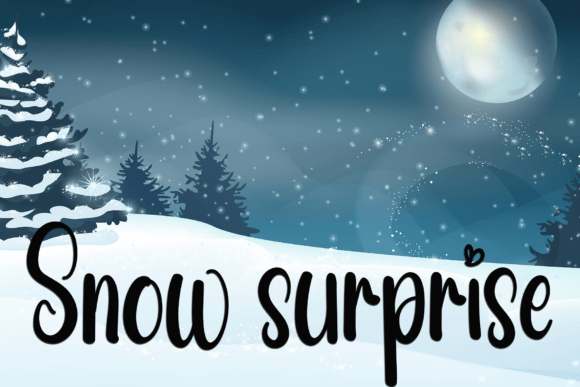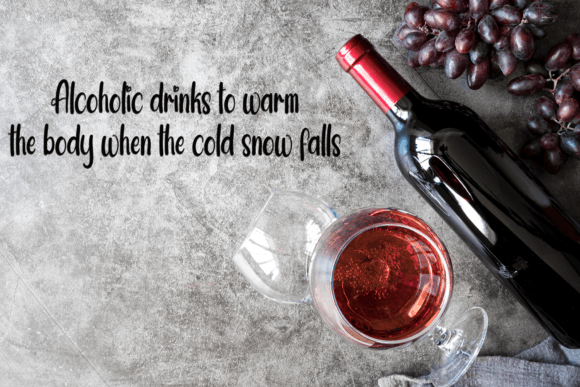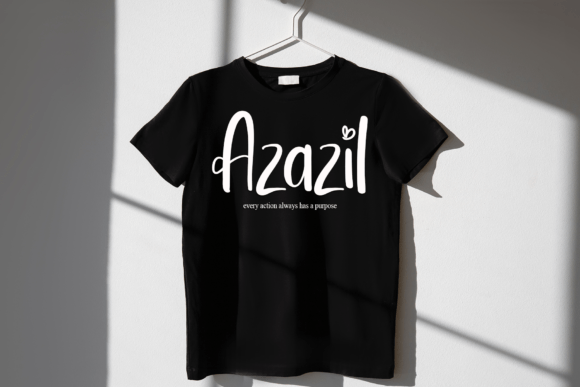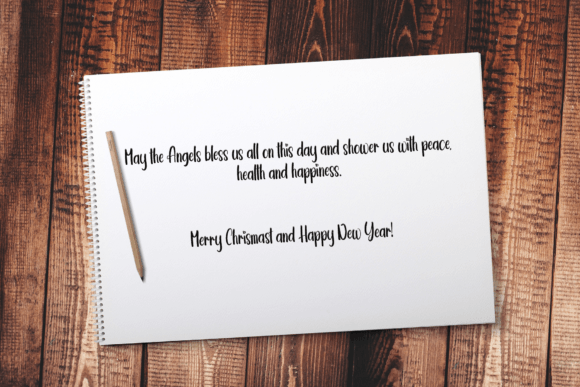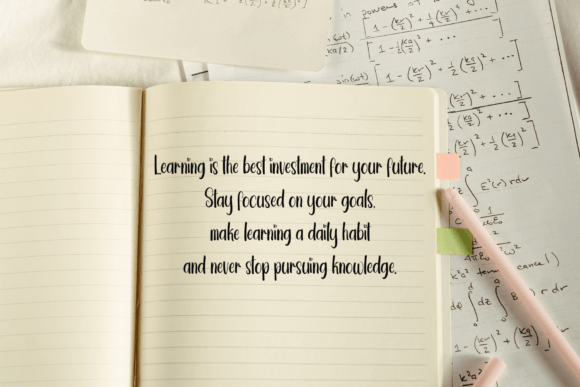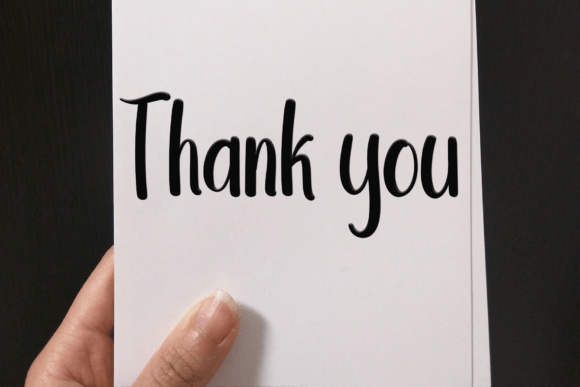
Introduction to Snow Angel Font
Do you remember that moment when you finally nailed your design project? The one that made you jump for joy and shout, “Yes, this is it!”? For designers, those moments are what make all the hard work worth it. And what’s even better is when you have the perfect tool to make your design come alive – enter the Snow Angel Font.
This stunning, free download font has been a game-changer for many designers, and for good reason. Its simple yet playful nature makes it incredibly versatile, allowing you to elevate your designs to new heights. Whether you’re working on a project with a transparent background or a high-quality graphic, the Snow Angel Font is the perfect design resource to add that extra touch.
As a valuable addition to any creative project, the Snow Angel Font is a must-have for designers looking to take their work to the next level. So why settle for ordinary when you can have extraordinary with this beautiful, free font?
Key Features of Snow Angel Font
- High-quality design: The Snow Angel Font is a premium design resource featuring intricate and delicate details that are perfect for creative projects.
- Unique characteristics: The Snow Angel Font features a unique and whimsical design that is sure to add a touch of magic to any creative project.
Honest Review: Snow Angel Font
As a designer, I’m always on the lookout for unique and high-quality design resources to elevate my creative projects. The Snow Angel Font is a free download that caught my attention with its elegant and whimsical design. ✨
One of the standout features of this font is its transparent background, which makes it easy to overlay on any design element. It’s also incredibly versatile, with a wide range of applications from wedding invitations to children’s book illustrations.
⚠️ The font is a bit more difficult to read in smaller sizes, and may require some adjustments to ensure legibility.
Overall, I’m impressed with the Snow Angel Font and would highly recommend it to designers looking for a unique and elegant design resource. Its high-quality design and versatility make it a great addition to any design library, and its free download makes it an accessible resource for designers of all levels.
The Snow Angel Font is a beautiful and unique design resource perfect for creative projects. With its transparent background and high-quality design, it’s a great addition to any project.
Use it to add a touch of elegance and sophistication to your design.
The Snow Angel Font is perfect for a variety of projects, including:
Wedding invitations and stationery.
Christmas and holiday cards.
Birth announcements and baby shower invitations.
Any project that requires a touch of elegance and sophistication.